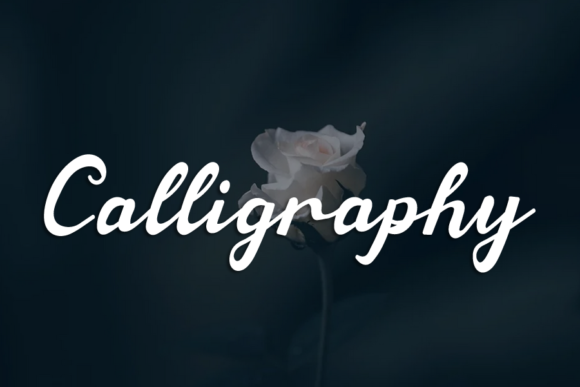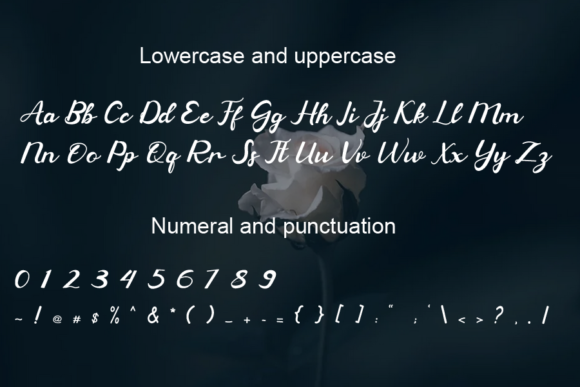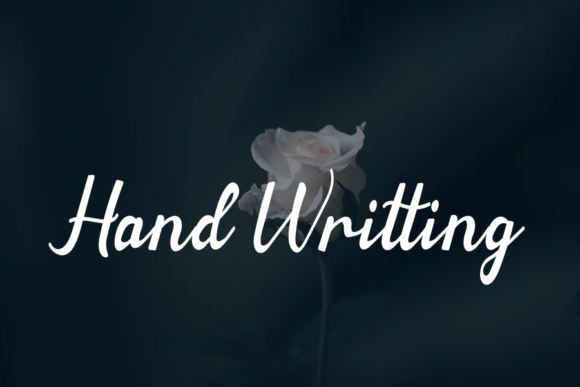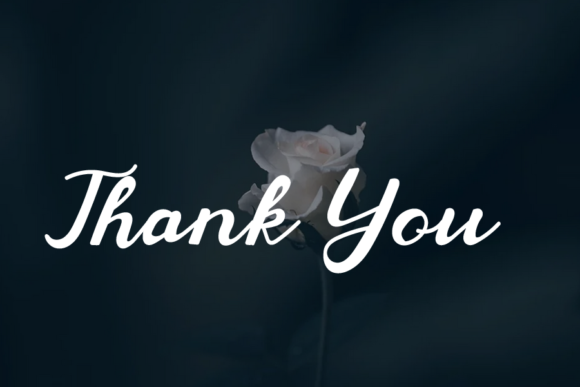
Introducing Background Font: The Epitome of Elegance and Versatility
In the realm of typography, few fonts manage to strike a chord with designers and crafters alike, evoking a sense of sophistication and charm. Background Font is one such marvel, a delicate and elegant handwritten font that has captured the hearts of many with its distinct and well-balanced letters. This masterpiece of a font is not just a visual treat but a versatile tool that can elevate your designs to spectacular heights.
The Essence of Background Font
Background Font is more than just a collection of letters; it’s an experience. Its delicate strokes and elegant curves bring a sense of refinement and poise to any design. Whether you’re crafting a logo, an invitation, a blog post, or any other visual content, Background Font adds a touch of class that is hard to achieve with more common fonts.
Distinct and Well-Balanced Letters
What sets Background Font apart is its meticulously designed letters. Each letterform is crafted with precision, ensuring that every character is not only aesthetically pleasing on its own but also harmonizes beautifully with others. This attention to detail results in a text that reads smoothly and looks stunning, making it perfect for both short phrases and longer passages.
Incredibly Versatile Style
Versatility is key in design, and Background Font delivers in spades. Its elegant and adaptable nature makes it suitable for a wide range of projects. From wedding invitations and event posters to blog headers and social media graphics, Background Font can add a layer of sophistication and charm that captivates audiences. Its scalability is impressive, looking great whether it’s used for a headline or body text.
Creating Spectacular Designs with Background Font
The true beauty of Background Font lies in its ability to inspire creativity. Here are a few ideas on how to use this magnificent font to create spectacular designs:
- Wedding and Event Stationery: Use Background Font for wedding invitations, save-the-date cards, and event posters to set a tone of elegance and romance.
- Branding and Logos: Incorporate Background Font into your logo or brand identity to convey a sense of luxury and sophistication.
- Blog and Social Media: Elevate your blog headers, social media posts, and stories with Background Font, making your content stand out in a crowded digital landscape.
- Packaging and Product Design: Add a touch of elegance to your product packaging with Background Font, enhancing the unboxing experience for your customers.
Tips for Using Background Font Effectively
To maximize the impact of Background Font, consider the following tips:
- Pair it with Complementary Fonts: Use Background Font in conjunction with simpler fonts for body text to create visual hierarchy and interest.
- Experiment with Colors: While Background Font looks stunning in black or dark colors, don’t be afraid to experiment with softer hues or metallic colors to match your design theme.
- Adjust Letter Spacing: For headings, slightly increasing letter spacing can enhance the elegant feel of Background Font.
Background Font is a testament to the power of elegant and versatile typography. Its delicate and elegant handwritten style, distinct and well-balanced letters, and incredibly versatile nature make it a valuable addition to any designer’s toolkit. By incorporating Background Font into your projects, you’re not just choosing a font; you’re embracing a design philosophy that prioritizes beauty, readability, and impact. So, fall in love with Background Font and let it guide you in creating spectacular designs that leave a lasting impression.